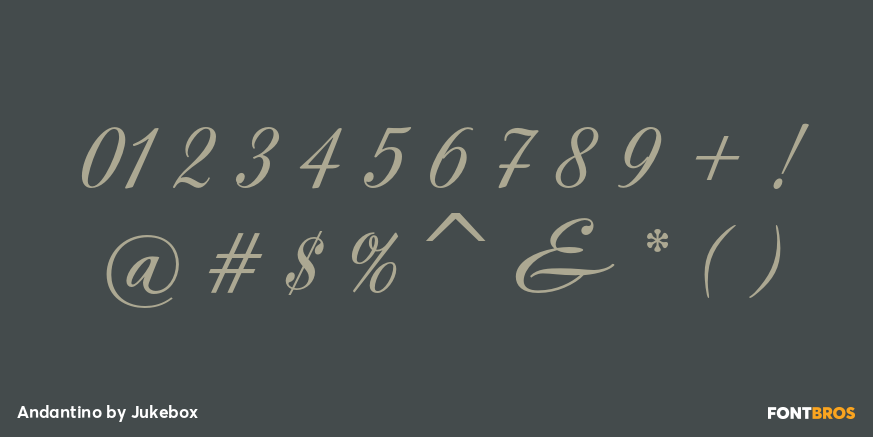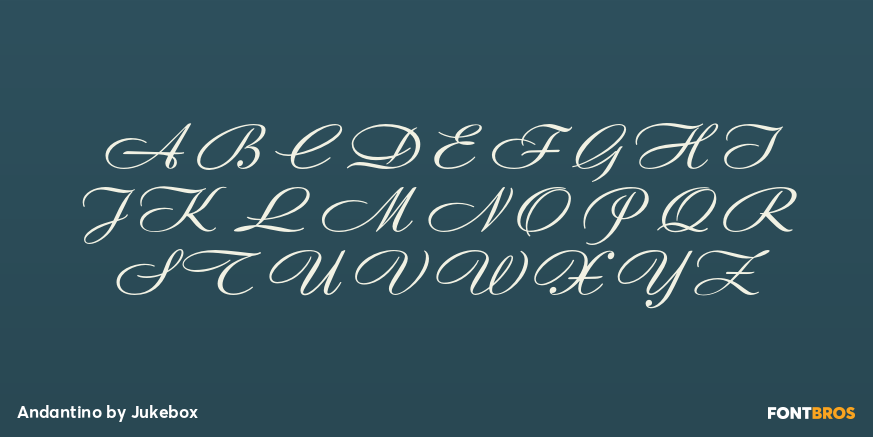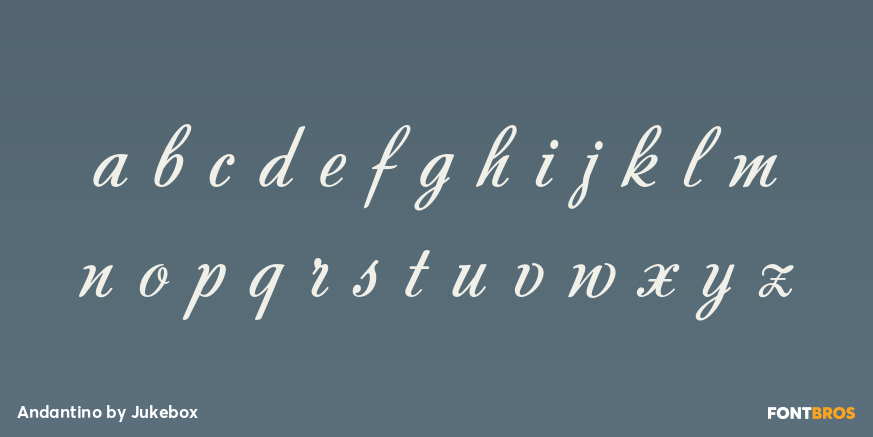
Andantino
Font Family by Jukebox
Buy NowAndantino is an elegant script font that has a more structured feel to the design. The lowercase letters are a perfect cross between